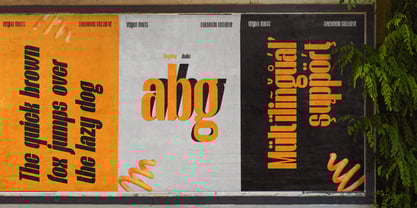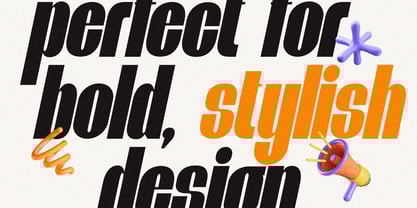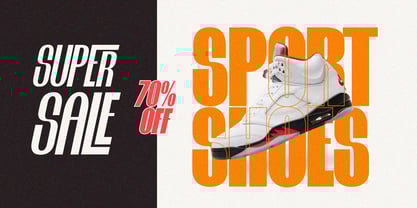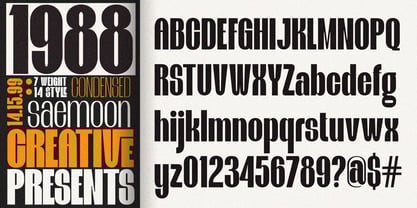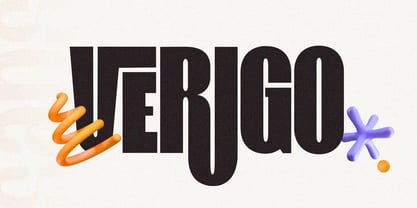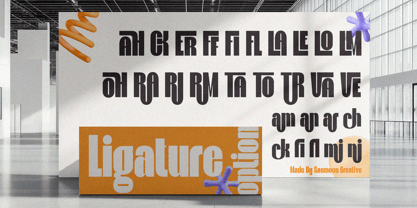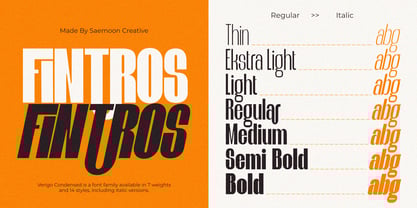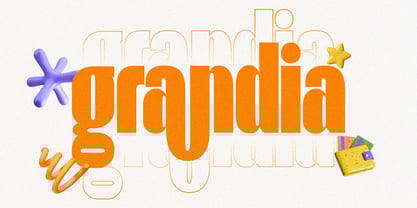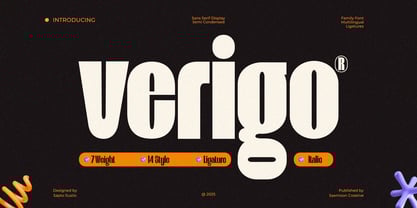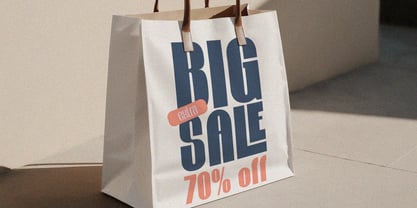
Verigo
Die Schriftfamilie Verigo wurde von Sapto Susilo entworfen und von Saemoon Creative veröffentlicht. Verigo enthält 14 Stile und Familienpaketoptionen.
Verigo is a modern semi-condensed display sans-serif font family crafted for bold visual statements. Featuring 7 weights from Thin to Bold, each with matching true Italics, Verigo offers a total of 14 versatile styles — perfect for contemporary design needs.
Designed with a sleek, space-saving structure without compromising readability, Verigo is ideal for movie titles, branding, editorial headlines, posters, and impactful digital graphics. Its semi-condensed proportions give it a confident, sharp presence while maintaining a clean and elegant look.
Packed with essential typographic features:
• OpenType features
• Elegant and functional ligatures
• Stylish true italics
• Extensive multilingual support
Whether you're crafting a cinematic logo or designing a bold brand identity, Verigo delivers clarity, personality, and professional polish in every letterform.